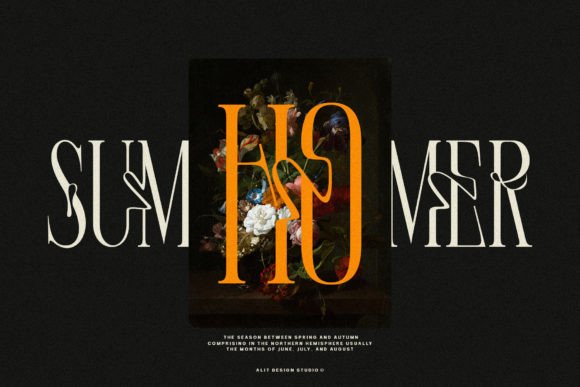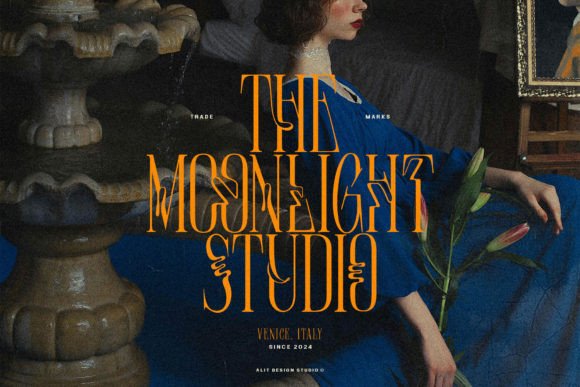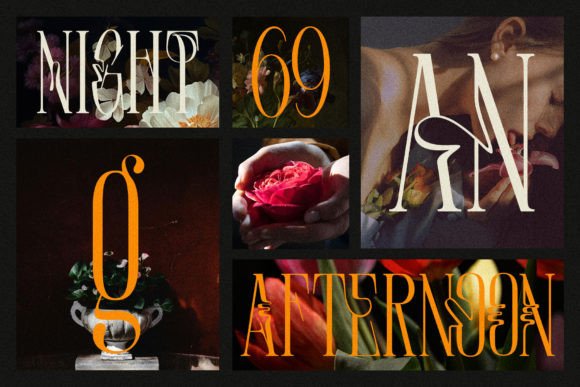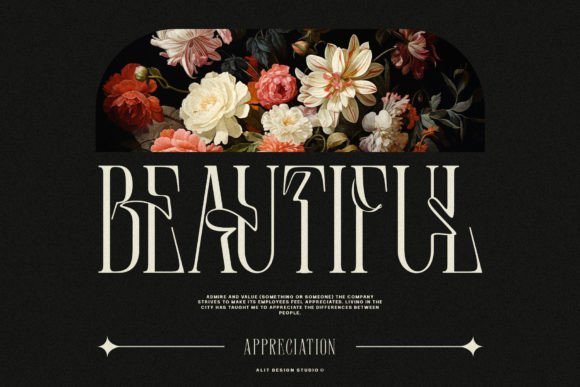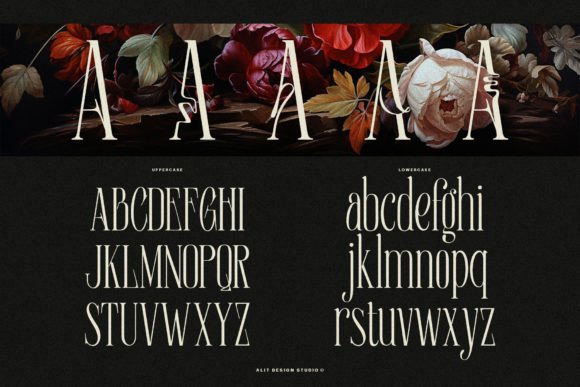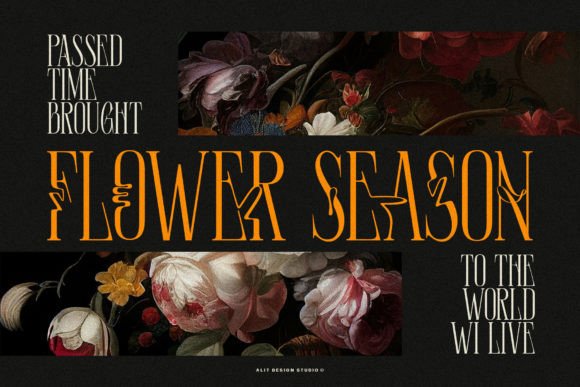
Discover the Unique Charm of Euromunche Font
I’ll never forget the struggle of working on a design project, hours spent scrolling through font libraries, and yet, nothing seemed quite right. The client wanted something modern, yet elegant; playful, yet sophisticated. It was then that I stumbled upon Euromunche Typeface, a tall serif font that instantly caught my eye. Its unique swaying characters and blend of modern aesthetics with a touch of whimsical charm made it the perfect fit for the project. In this article, I’ll share my journey with Euromunche, its features, and how you can make the most of this versatile font in your designs.
A Personal Review of Euromunche Font
What I Love About Euromunche ✨
- ✅ Unique and Distinctive Design: The swaying characters of Euromunche add a dynamism to the text that’s hard to find in other fonts.
- ✅ Versatility: Perfect for magazine headlines, article titles, stylish editorials, logos, brand names, and corporate identities.
- ✅ Elegance and Playfulness: It strikes a perfect balance between being sophisticated and playful, making it suitable for a wide range of design projects.
- ✅ Modern Aesthetics: The tall serif design gives it a contemporary look that’s sure to make your designs stand out.
While Euromunche is a fantastic font, there are a few things to keep in mind:
- 🤔 Legibility at Small Sizes: Like many serif fonts, Euromunche may lose some legibility when used at very small sizes. It’s best used for headlines or larger text.
- 🤔 Overuse of Swashes: While the swaying characters are a unique feature, overusing them can make the text hard to read. Balance is key.
The Inspiration Behind Euromunche
Euromunche’s design draws inspiration from the classic serifs of European typography, blended with a modern, playful twist. The creator aimed to produce a font that could serve both as a statement piece in headlines and as an elegant choice for body text. The distinctive swaying characters were inspired by handwritten calligraphy, adding a touch of whimsy and uniqueness to the font.
| Author | Alit Design |
Q: Is Euromunche suitable for body text?
A: While Euromunche is stunning for headlines and titles, its legibility at smaller sizes might make it less ideal for long body text. Consider using it for headings and a more straightforward font for the body.
Q: Does Euromunche support OpenType features?
A: Yes, Euromunche supports OpenType features, including stylistic alternates and swashes, which can be accessed in compatible software like Adobe Photoshop and Illustrator.